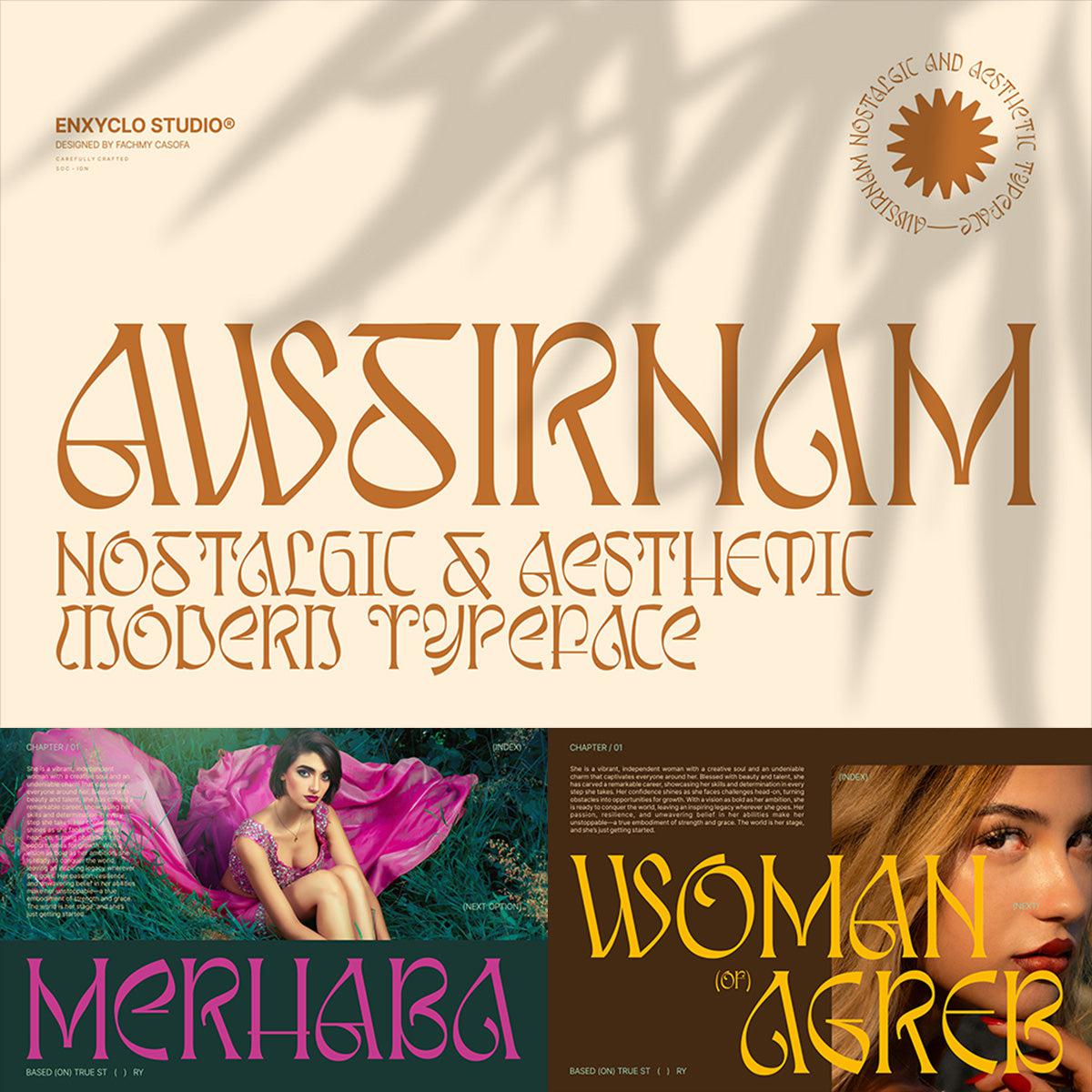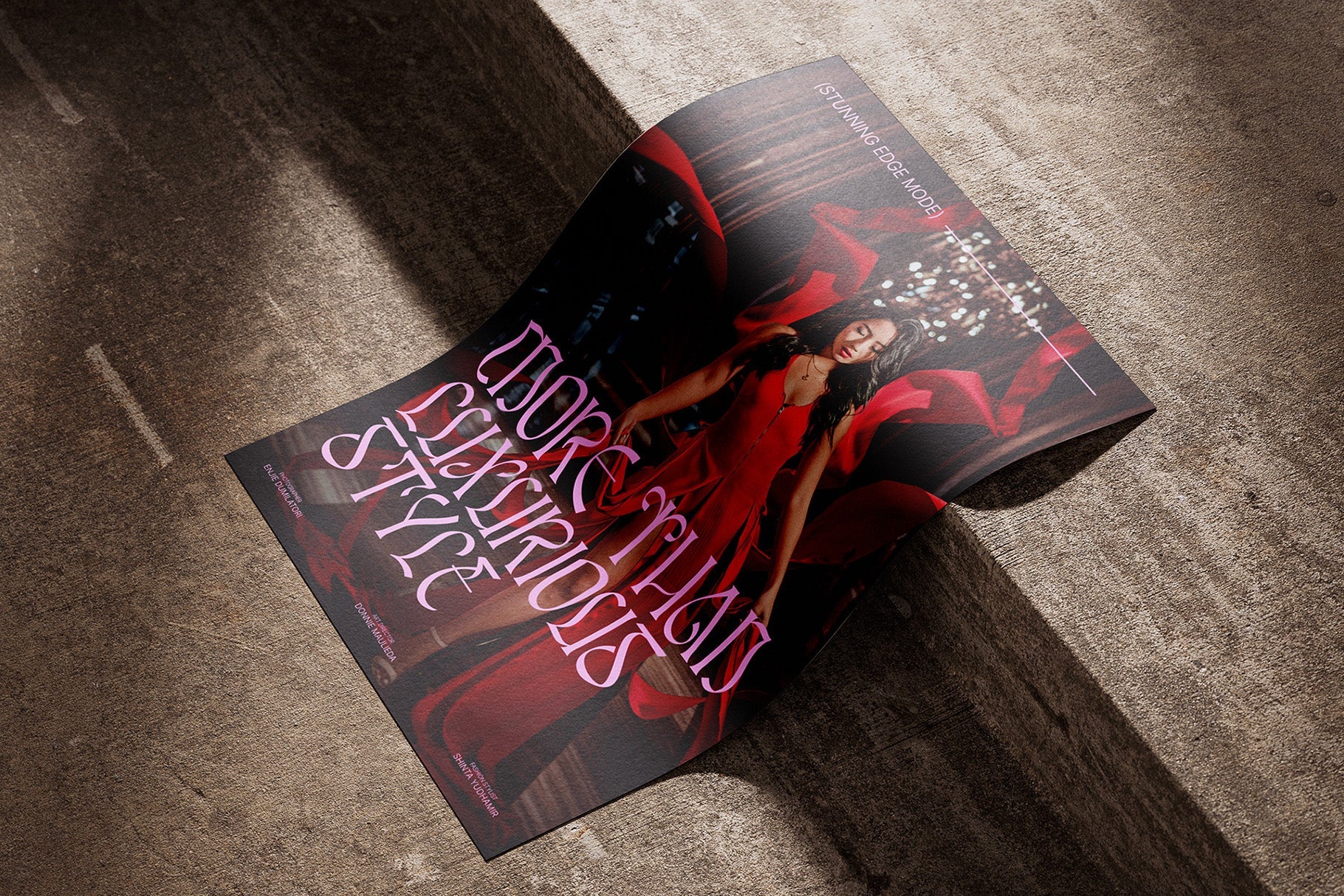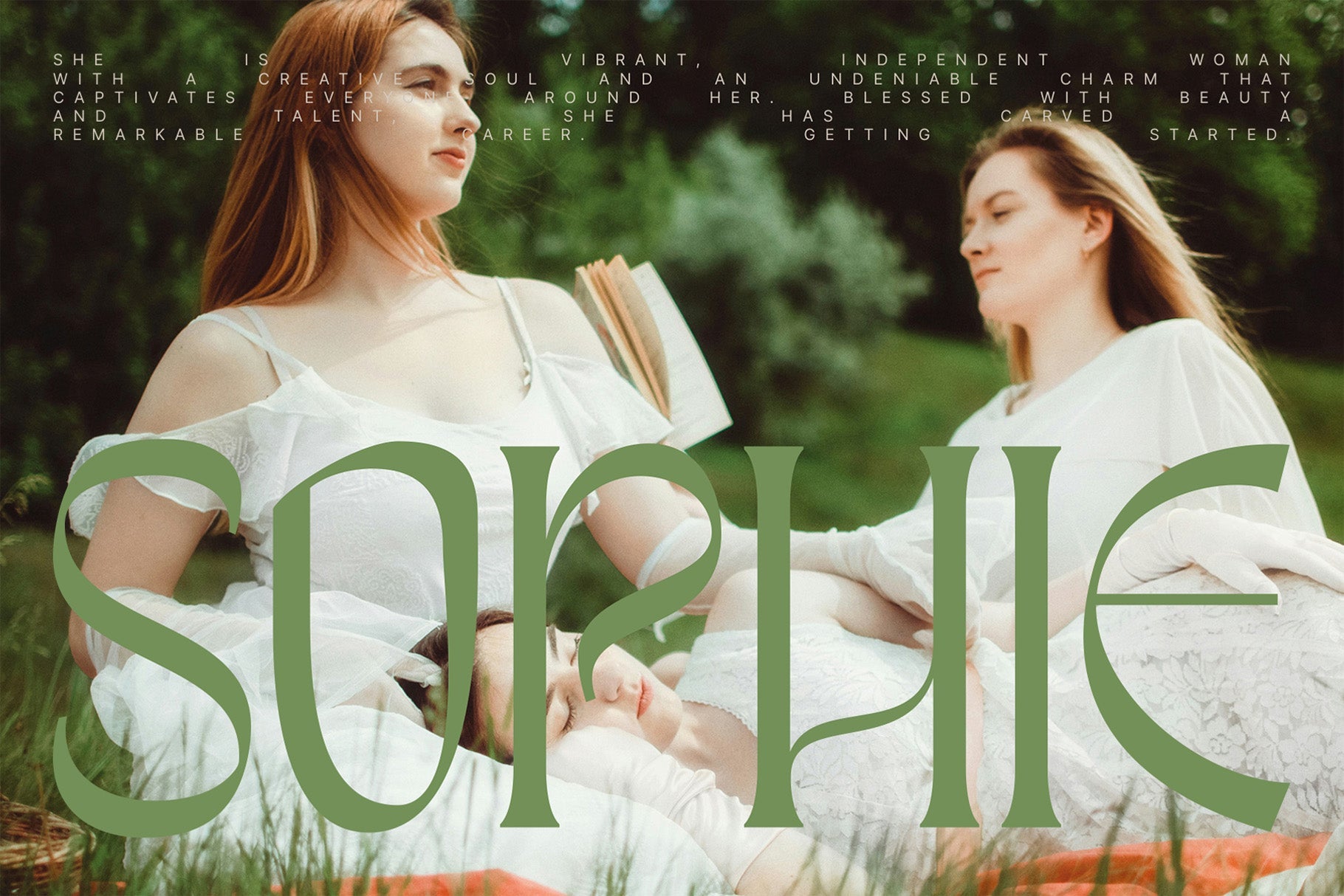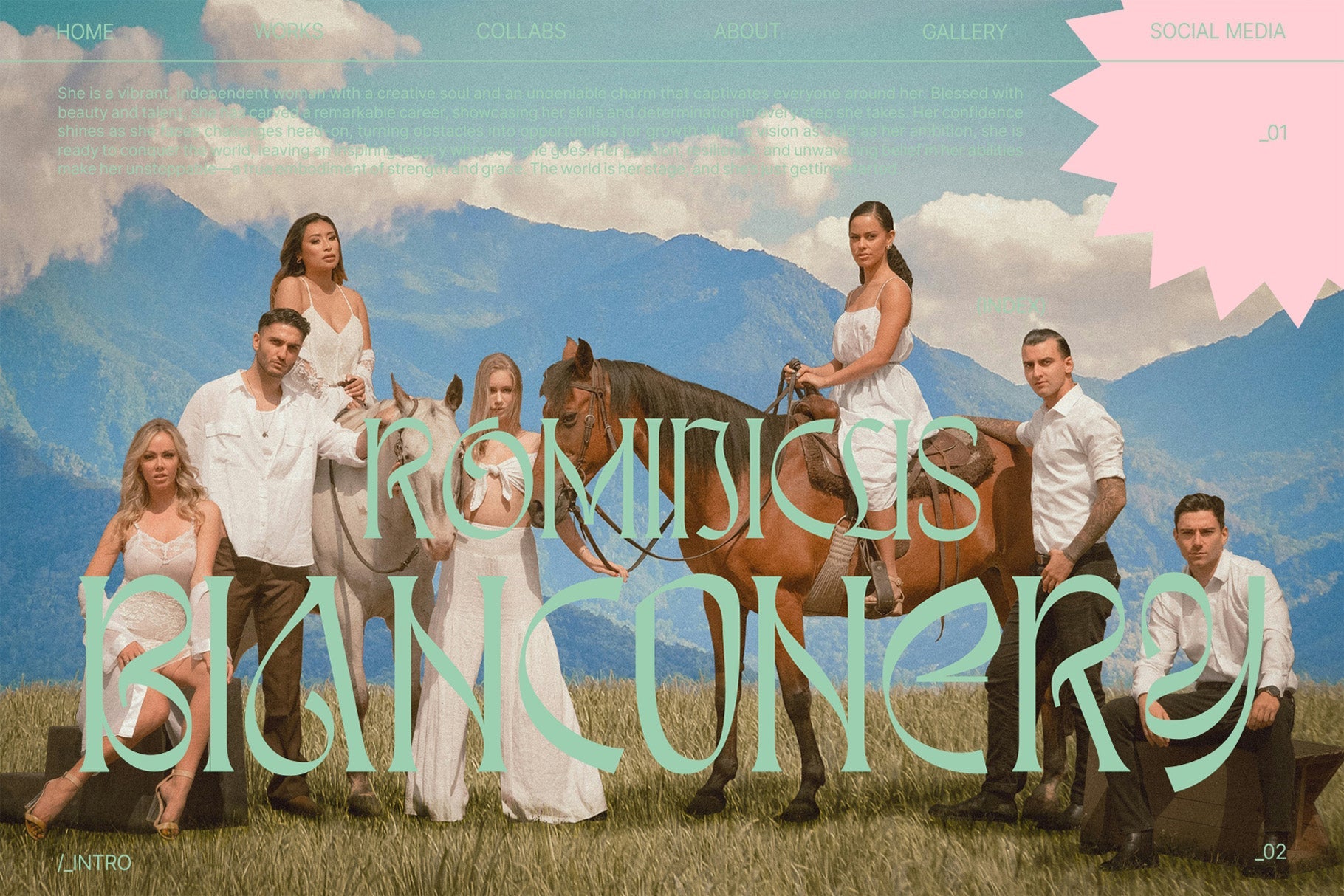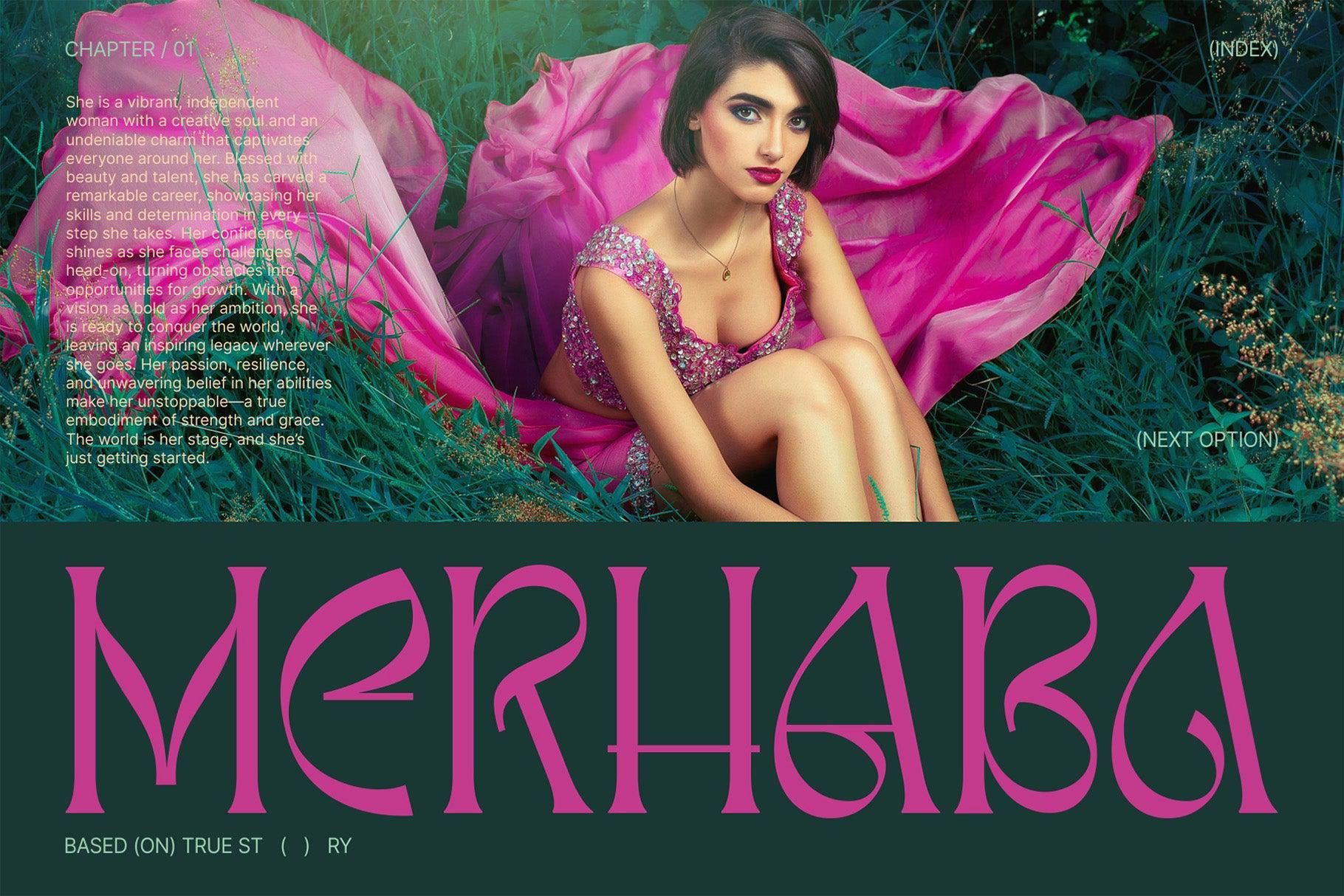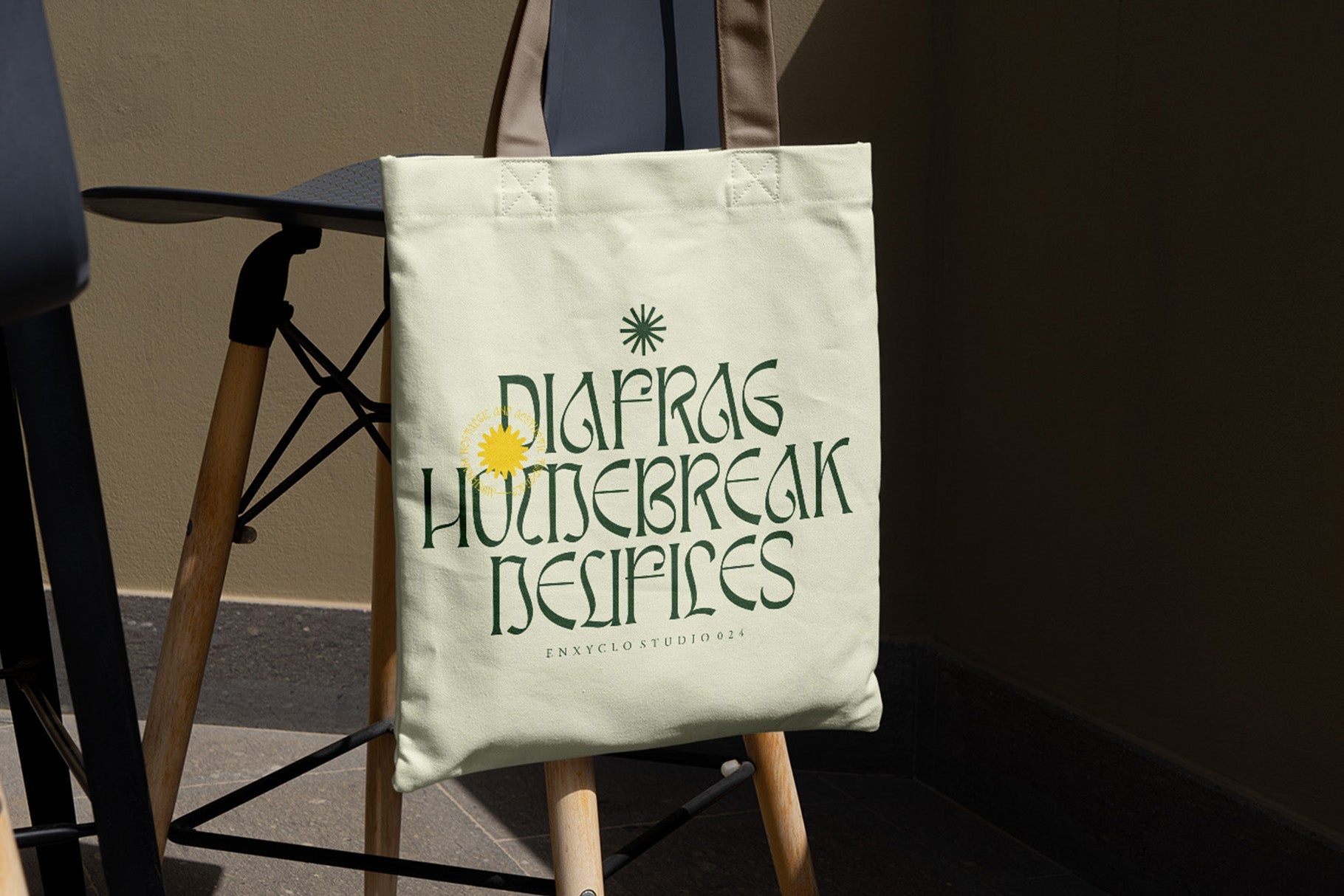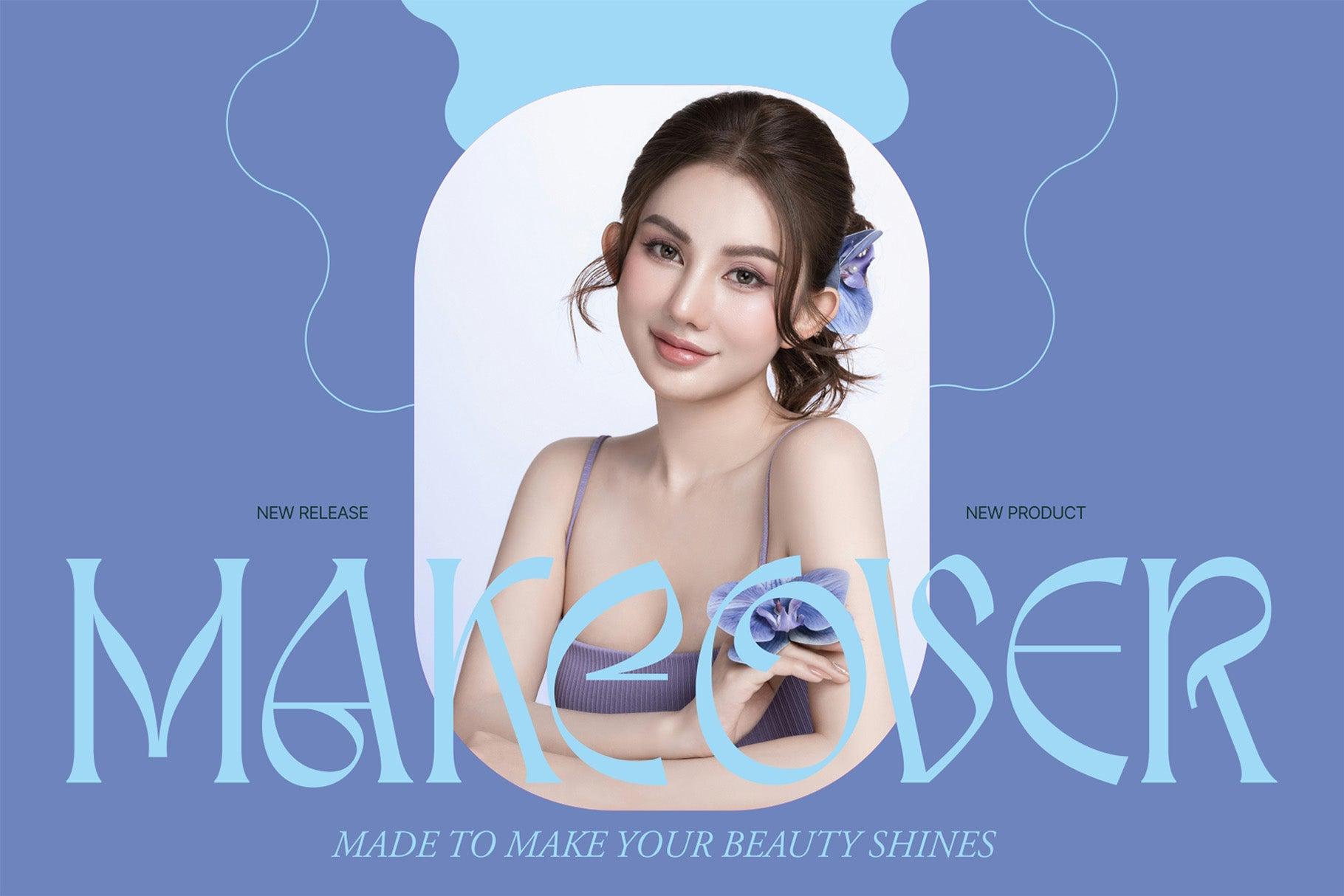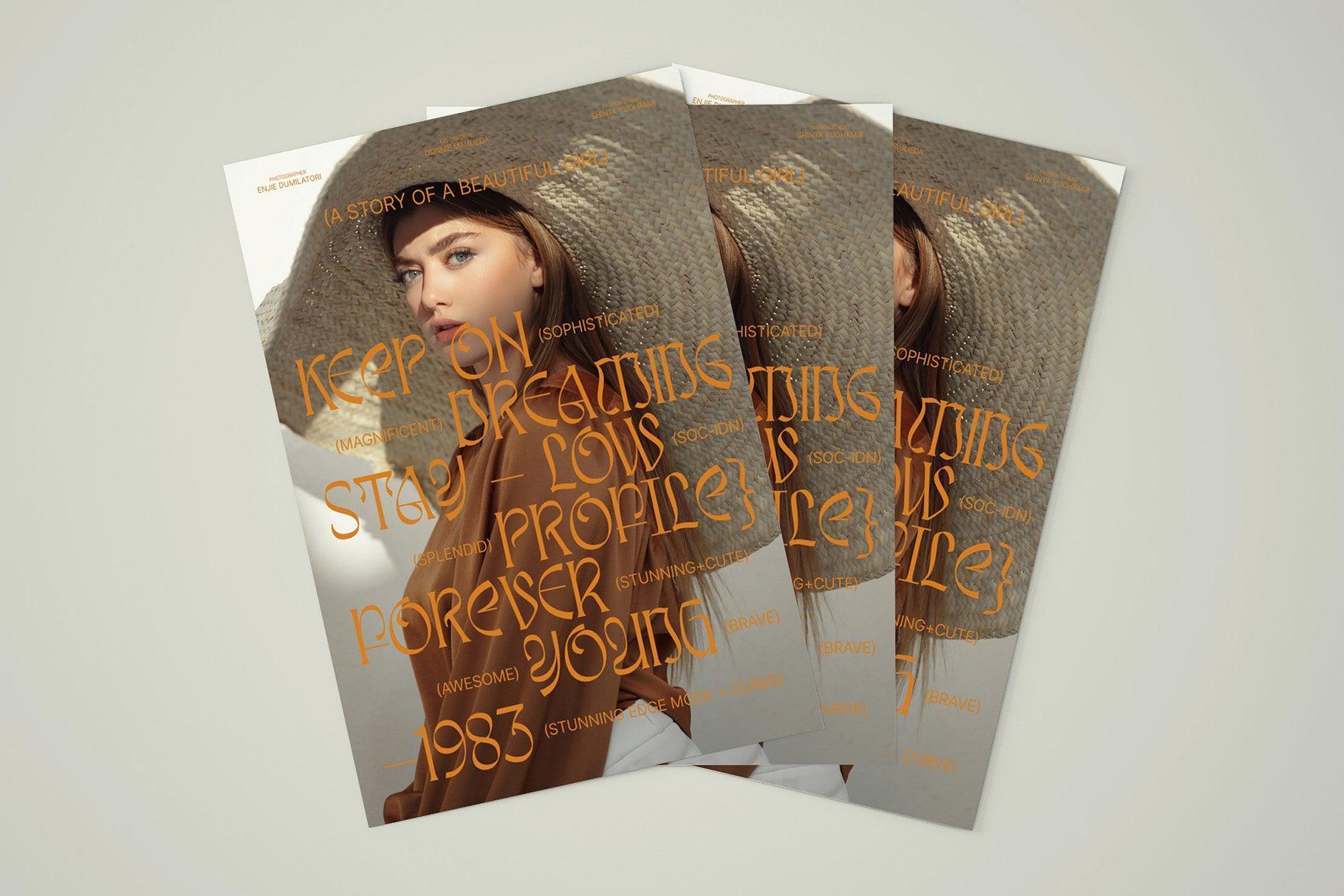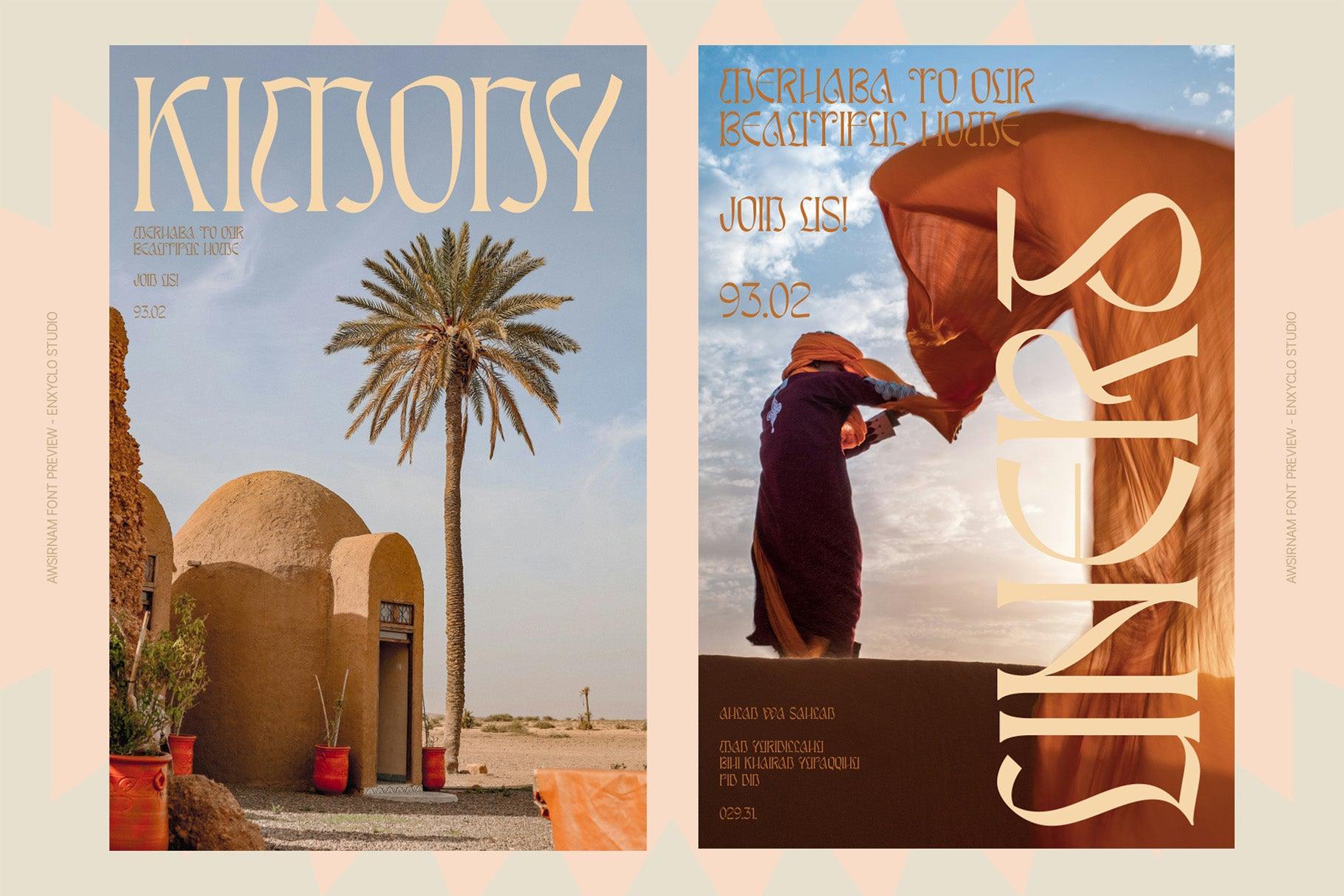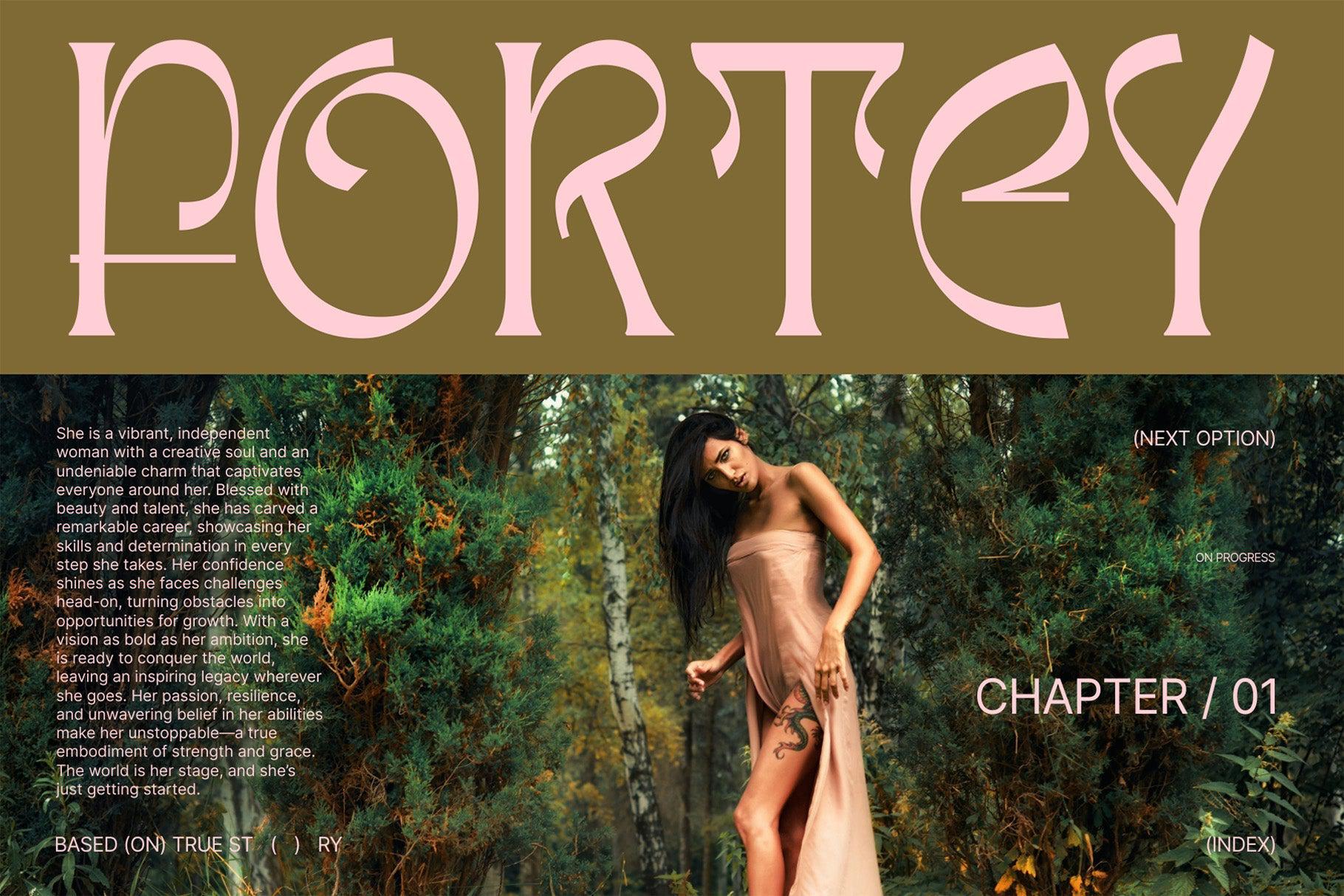
AWSIRNAM
Awsirnam - Aesthetic Serif Font is a contemporary all-caps serif display font that combines bold curves with sharp accents. It is designed for use in both large and small point sizes and includes 258 unique glyphs, uppercase and lowercase letters, numerals, punctuation, symbols, and multilingual support. The font is available in True Type Font (TTF), Open Type Font (OTF), and Web Open Font Format (WOFF1 & WOFF2).
Ideal for modern and vintage-inspired graphic design projects. Perfect for posters, branding, logos, and digital ads, ensuring a striking visual impact that balances nostalgia with contemporary elegance.